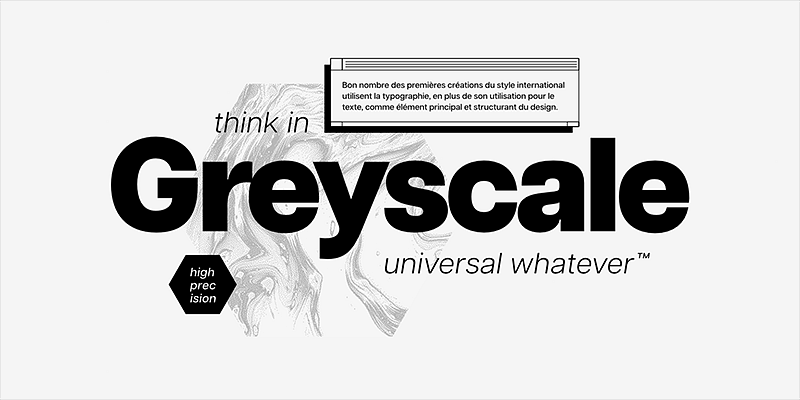
Articulat CF Font Free Download
Articulat CF Font Free Download is a sleek, modern sans-serif typeface known for its clean lines and high readability. With a contemporary, geometric style, this font is perfect for professional projects such as corporate branding, editorial layouts, website design, and advertising materials that require a modern, polished aesthetic.
Articulat CF works well for both large headlines and smaller body text, offering versatility and clarity across digital and print platforms. It integrates easily with design tools like Adobe Illustrator, Photoshop, Figma, and Canva, making it a great choice for both creative professionals and beginners.